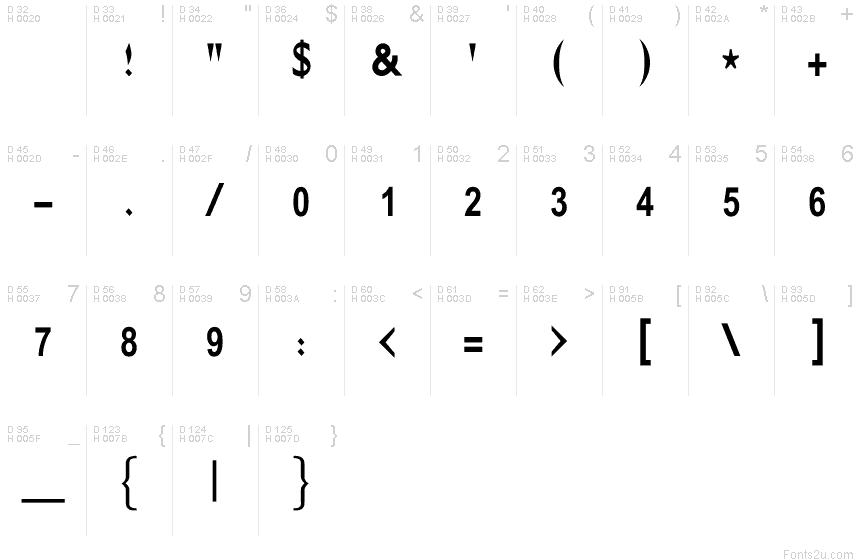
GE MB MB Bold Condensed is a free condensed Arabic sans serif from Boutros International, built from broad strokes and compact forms. The lettering has a dense, upright silhouette with softened turns and tight joins. It feels direct and substantial.
Packaging suits its compressed build, especially for everyday consumer goods. Posters and editorial covers can use the same dark texture for assertive Arabic display copy. The sturdy forms also suit cultural events centered on contemporary Arabic life.